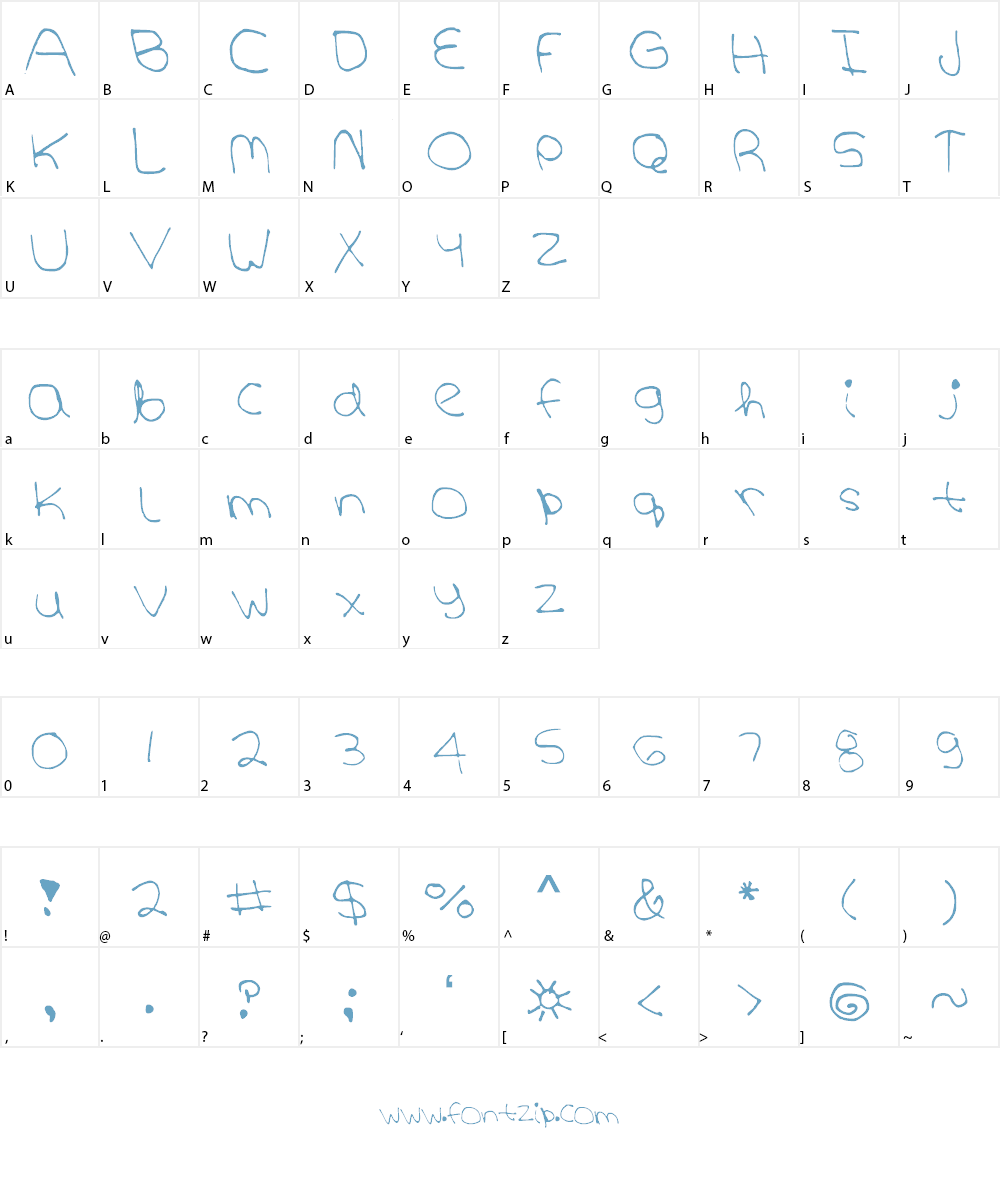
I always loved handwriting that is big and round, and fonts that looked like handwriting, so I made one like it. Feel free to use it for non-commercial use, personal use, graphics, etc. I hope you like it! :)